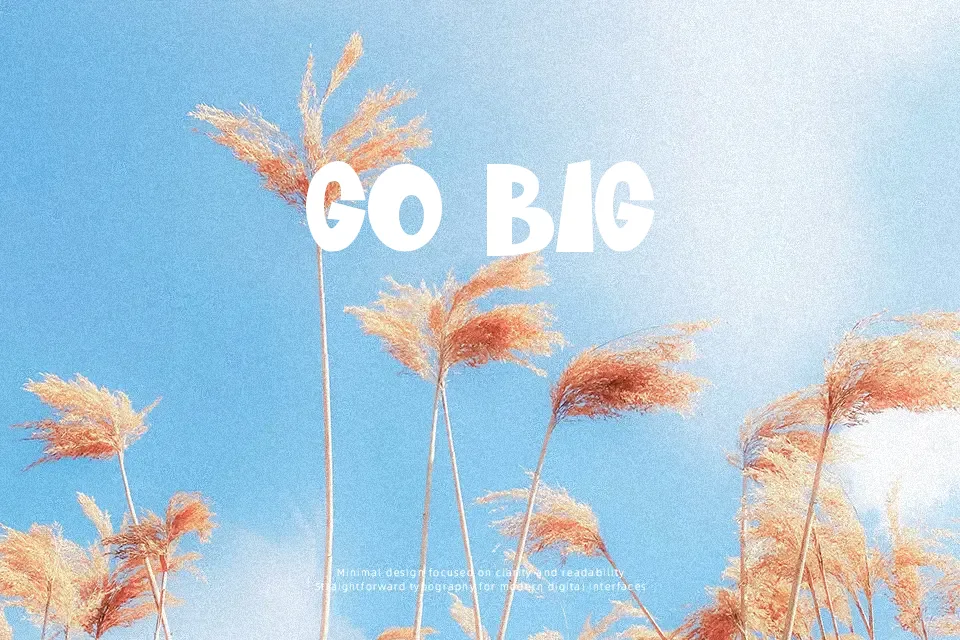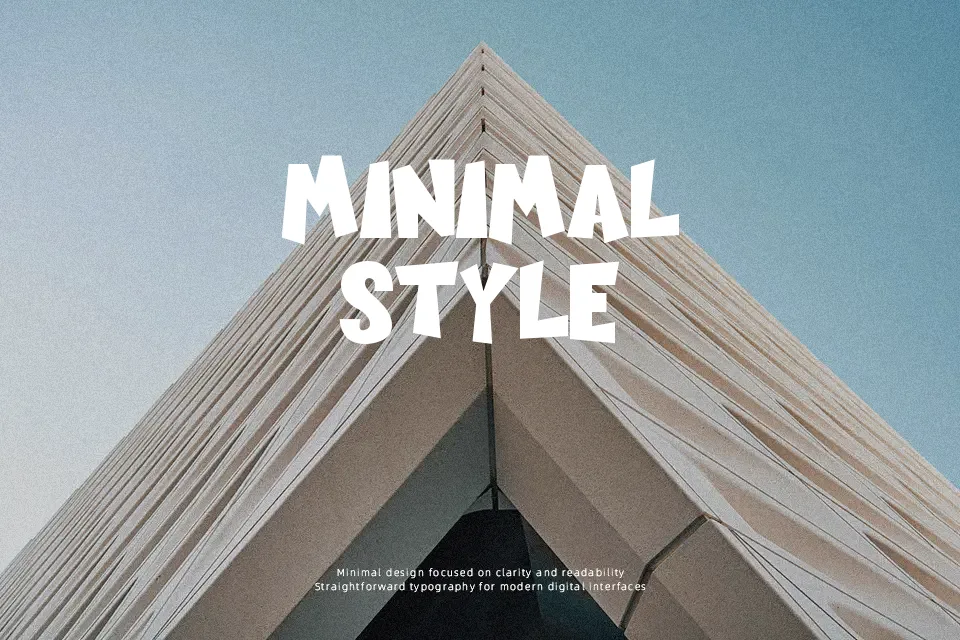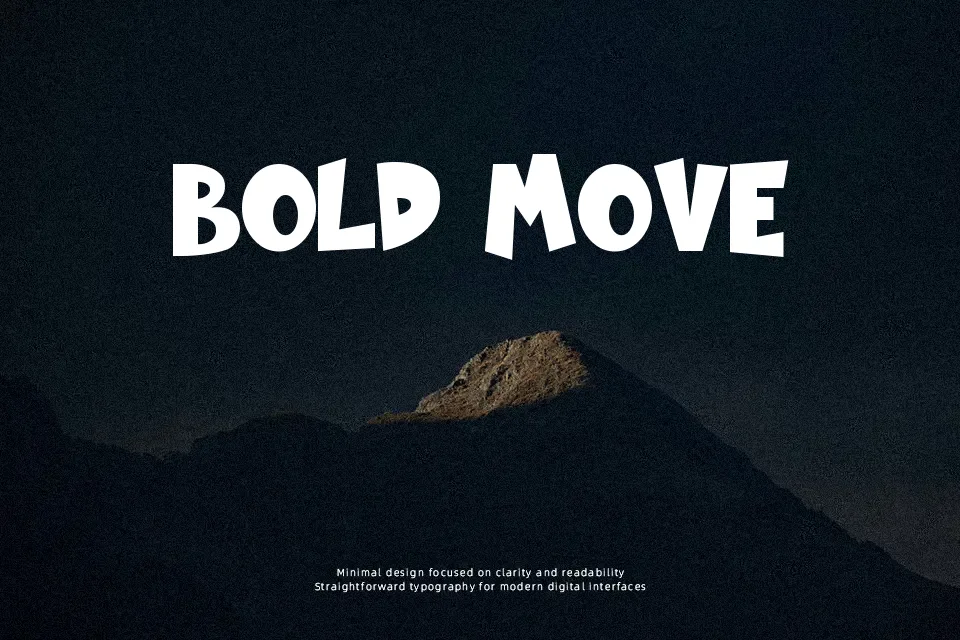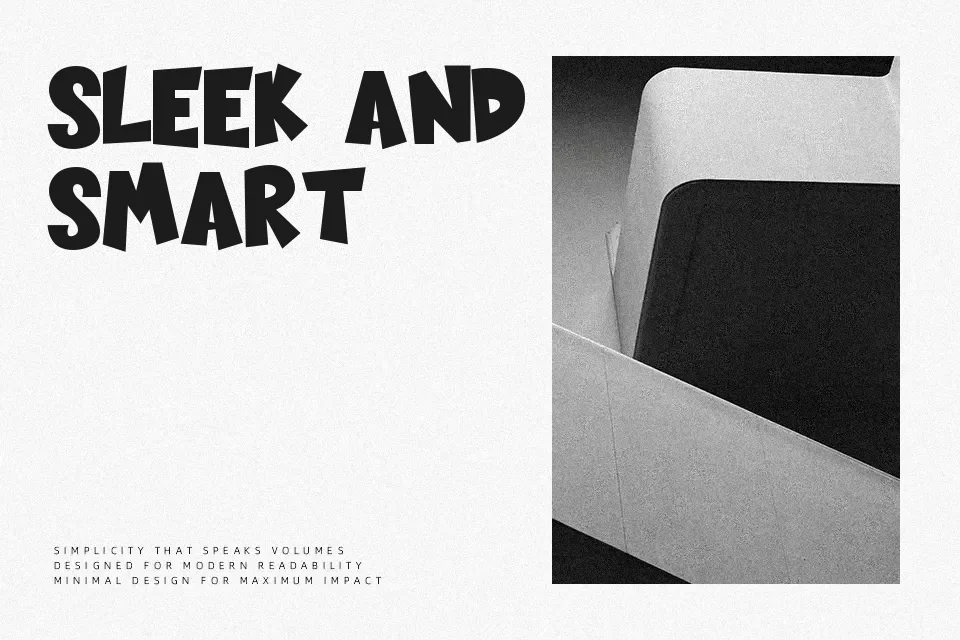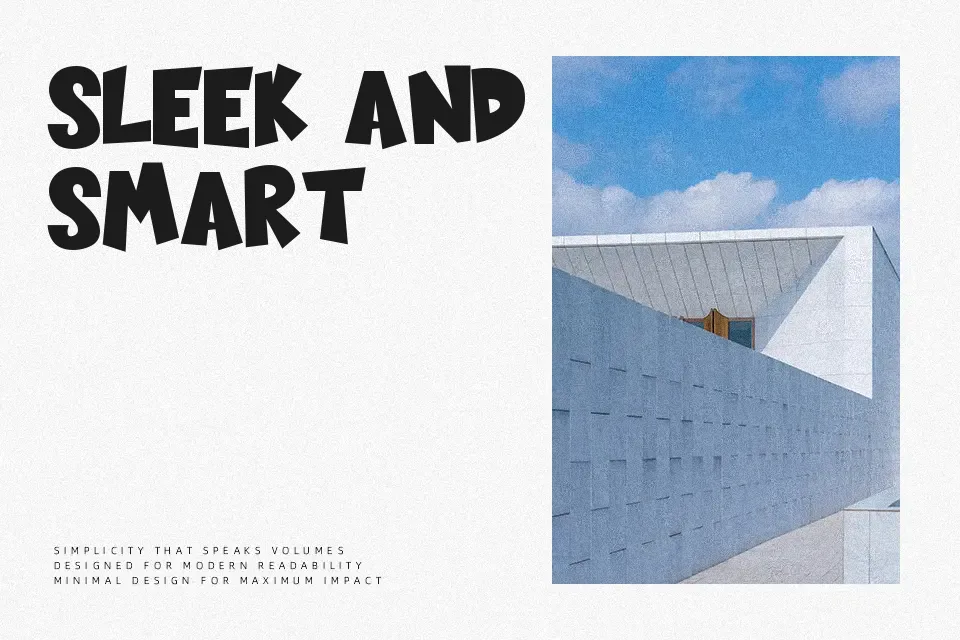
Sugar Bomb Font
Sugar Bomb Font uses chunky sans serif letterforms with rounded contours, thick strokes, and an animated display rhythm. Its proportions give uppercase and lowercase text a lively, informal appearance, while the broadly shaped characters retain clear silhouettes in short words and headlines. The design is most effective when set large for posters, invitations, children’s artwork, and attention-led social media graphics. Its heavy forms provide strong visibility in display settings, but the expressive weight and compact visual density make long passages feel tiring. Use it for brief, energetic messages rather than detailed copy or small functional text.
Best For: children’s party invitations,poster headlines,product packaging titles,social media graphics